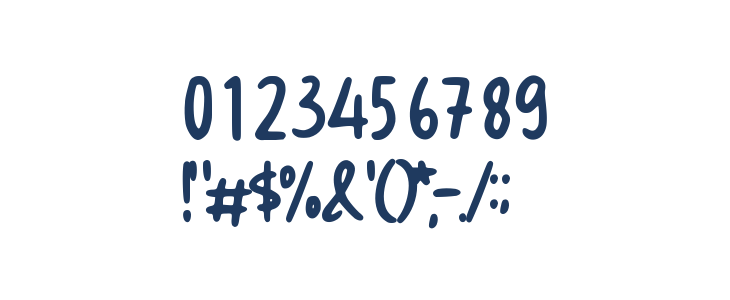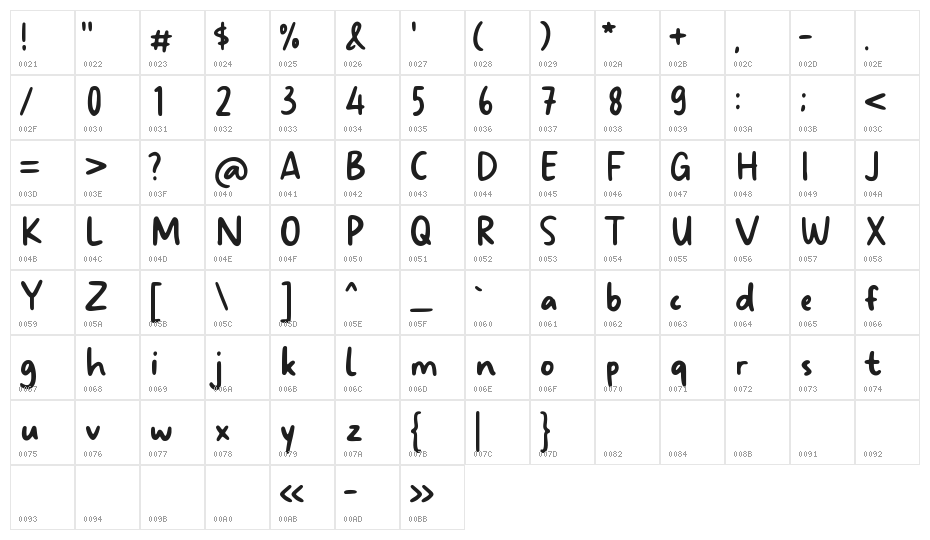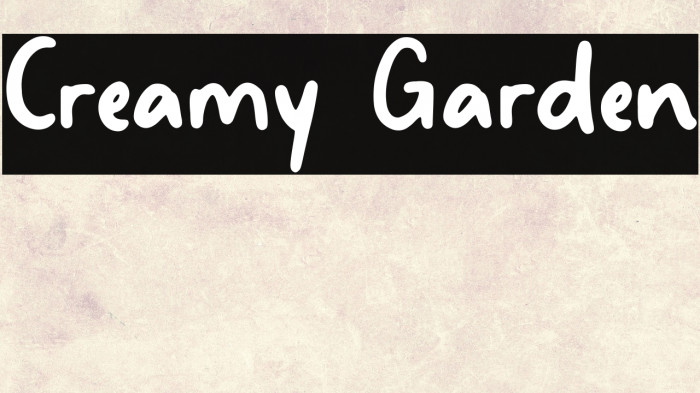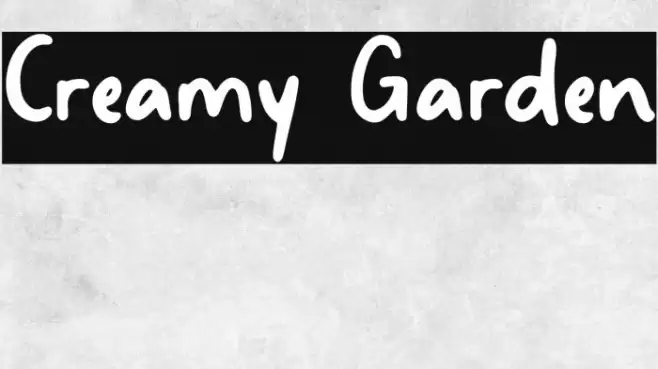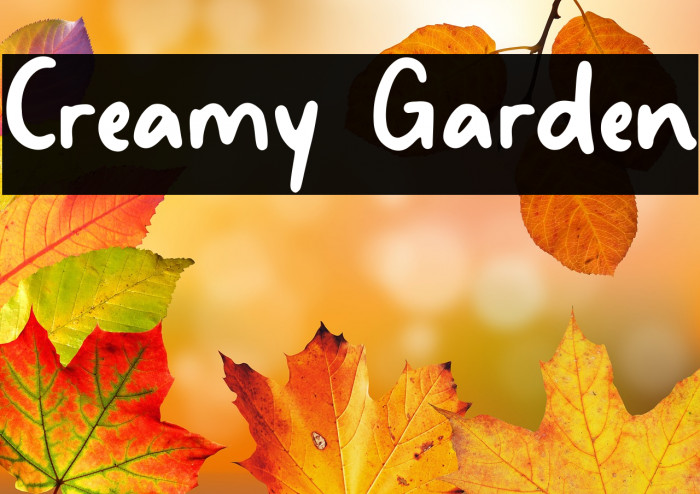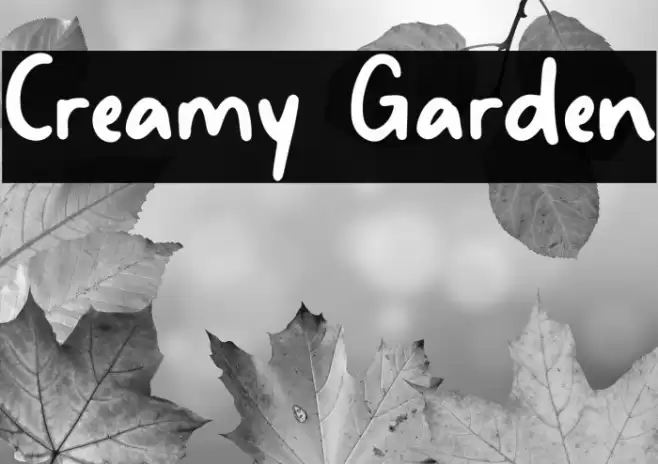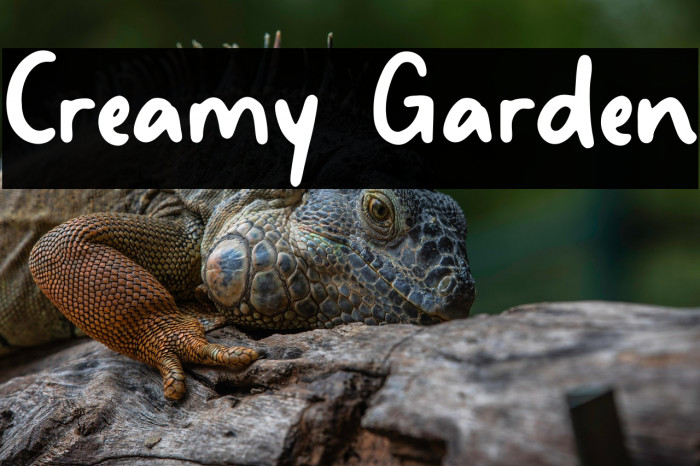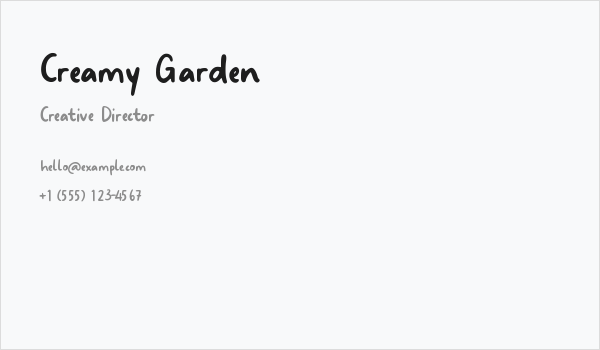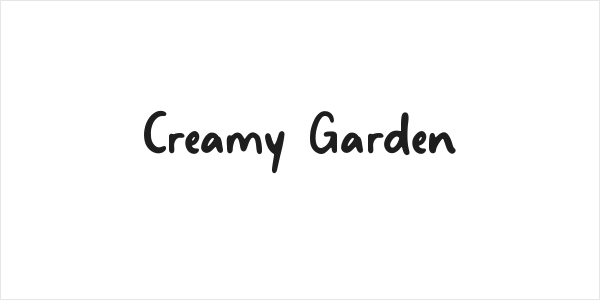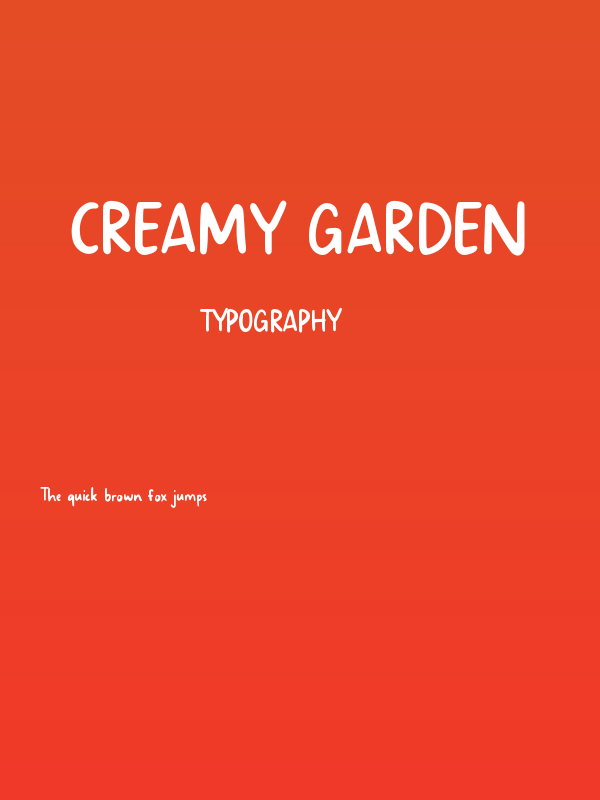
Creamy Garden Font
Creamy Garden Description
This font exhibits a playful and casual handwritten style, characterized by its rounded and smooth letterforms. The strokes are consistent in thickness, giving it a uniform appearance that is both approachable and friendly. The uppercase and lowercase letters maintain a cohesive look, with slightly exaggerated curves that add to its charm. The numerals and special characters follow the same design principles, ensuring a harmonious overall aesthetic. This font is perfect for projects that require a touch of personality and warmth, making it ideal for informal communications, children's books, or creative branding.
| Use Case | Headlines, Informal text, Creative branding |
| Proposed Projects | Ideal for children's books, creative branding, informal communications, and playful designs. |